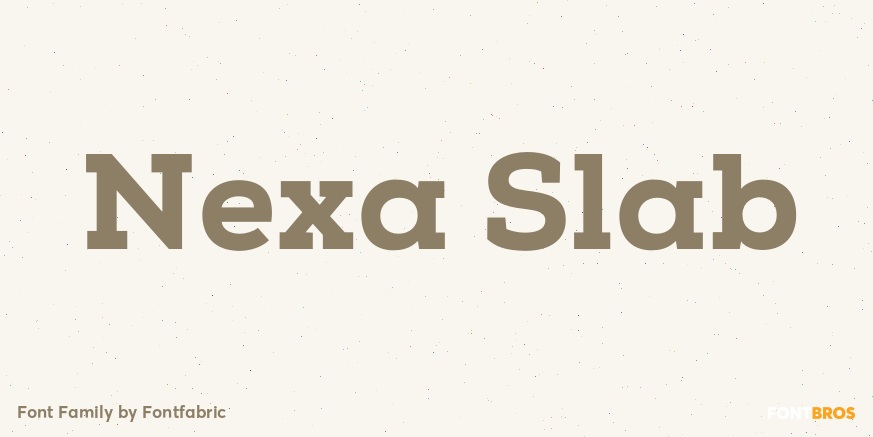
About Nexa Slab
Nexa Slab is a geometric slab serif font whose design is based on the already popular best-seller Nexa. The font family contains 3 basic forms: italics, obliques and uprights, each of which has 8 different weights. This visual richness makes it the ideal…